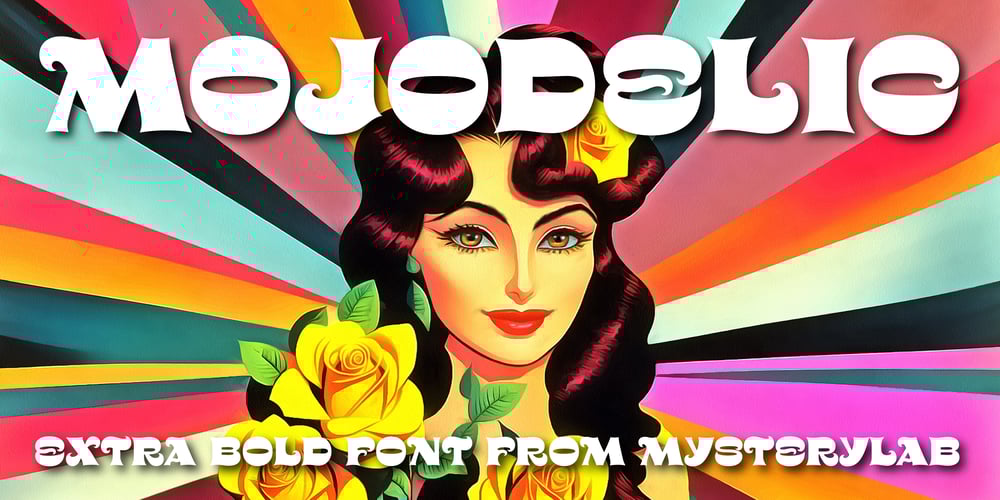
Mojodelic
Mojodelic font
Mojodelic Font Family was designed by Mott Jordan and published by Mysterylab. Mojodelic contains 2 styles and family package options. Looking for a font with that certain… umm… special mojo? Mojodelic might just be the niche font that you need to create that unique statement — one that really pops off the page. While this typeface certainly grooves with the 1960s – 1970s vintage psychedelic and pop art look, it’s also a perfect fit with retro 1990s party-way-too-hard youth culture graphics. With its ultra-bold reverse-contrast design and whimsical little curlies, this one’s got equal parts silliness and swagger. Try it on skateboard graphics, retro message t-shirts, apparel logos, beverage labeling, candy packaging, teen/tweener marketing, greeting cards… you name it. Enjoy.